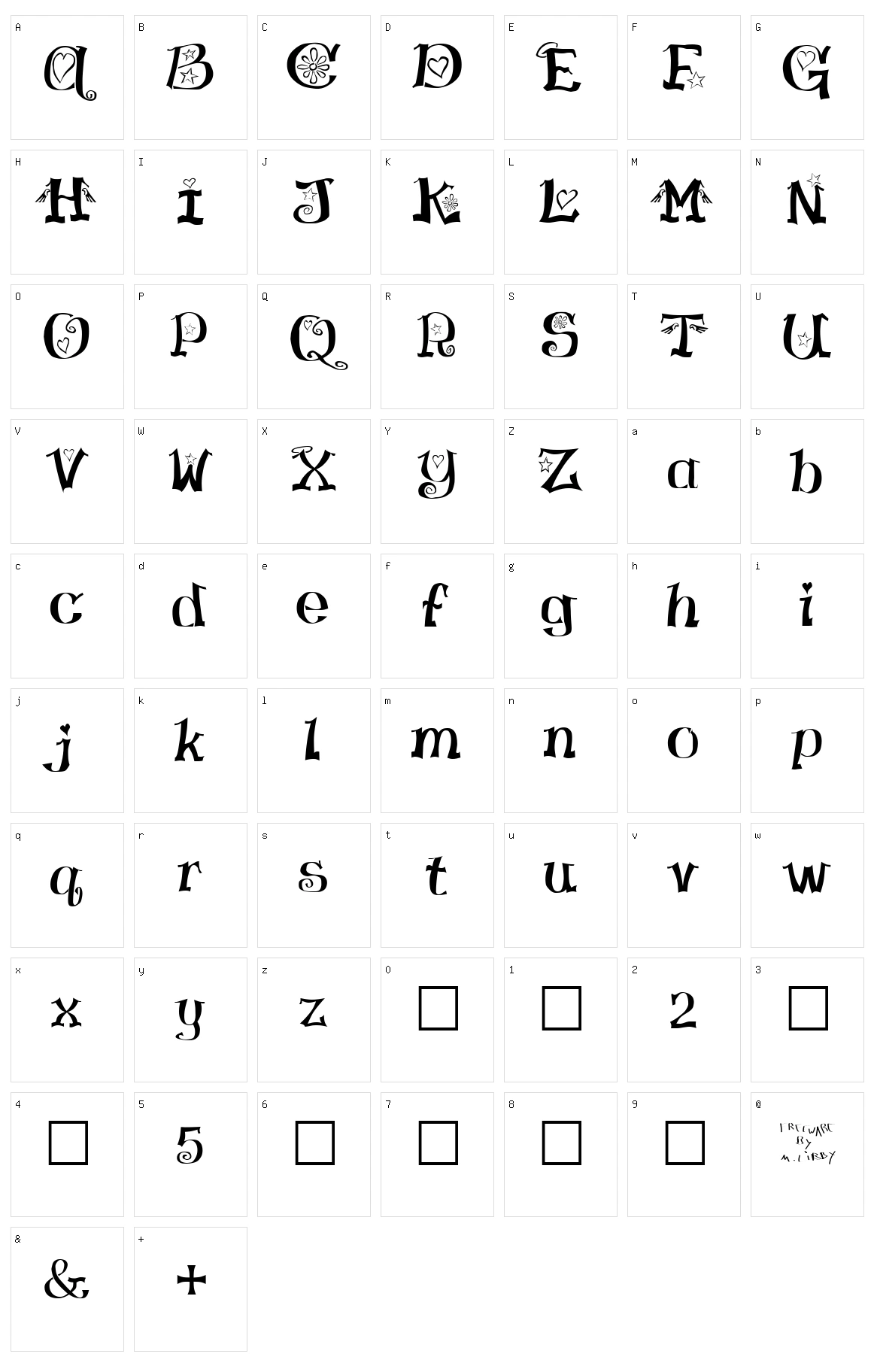
The free font Virgin Love is carefully designed by M. Libby, showcasing a thoughtful balance of creativity and usability and falls under the Valentine font style. When you download the ZIP file, it contains only 25.16 KB of font files, making it lightweight and quick to download. Please review the license details below to understand permitted usage and distribution rights. If license information is not available, we recommend using this font for personal projects only or contacting the author directly for commercial usage permissions.